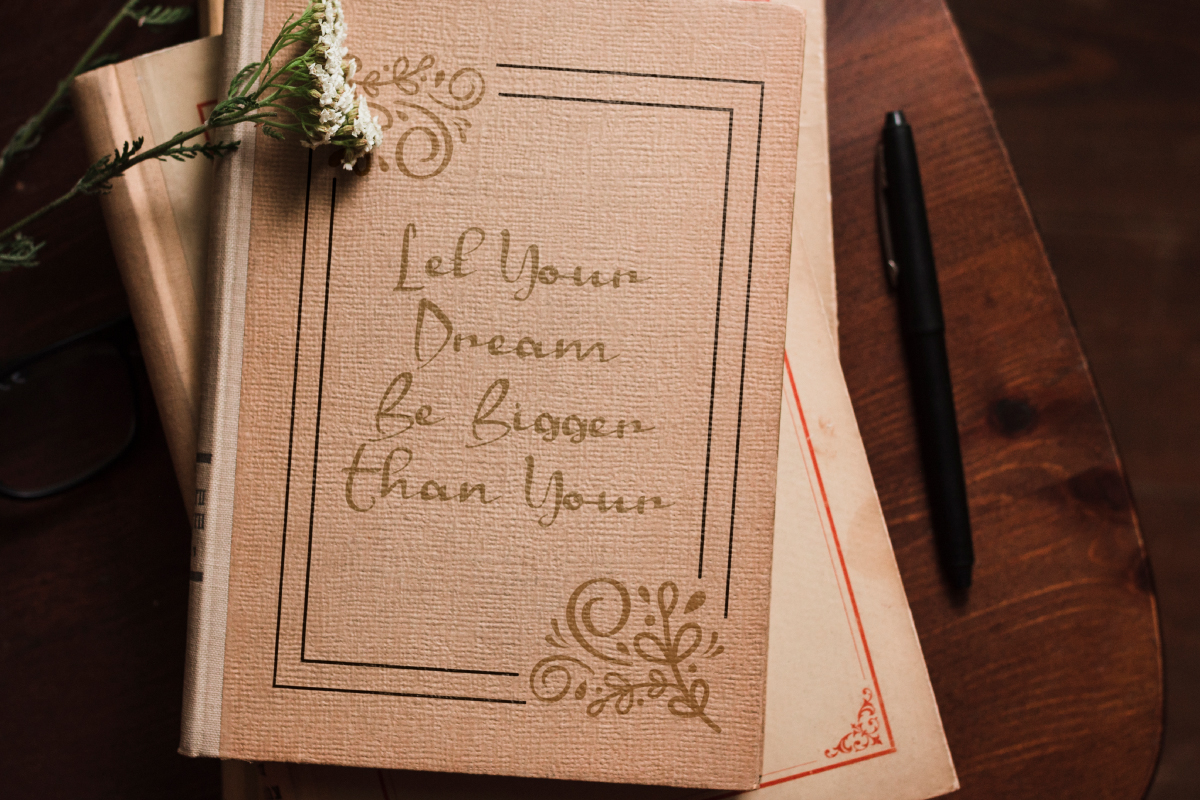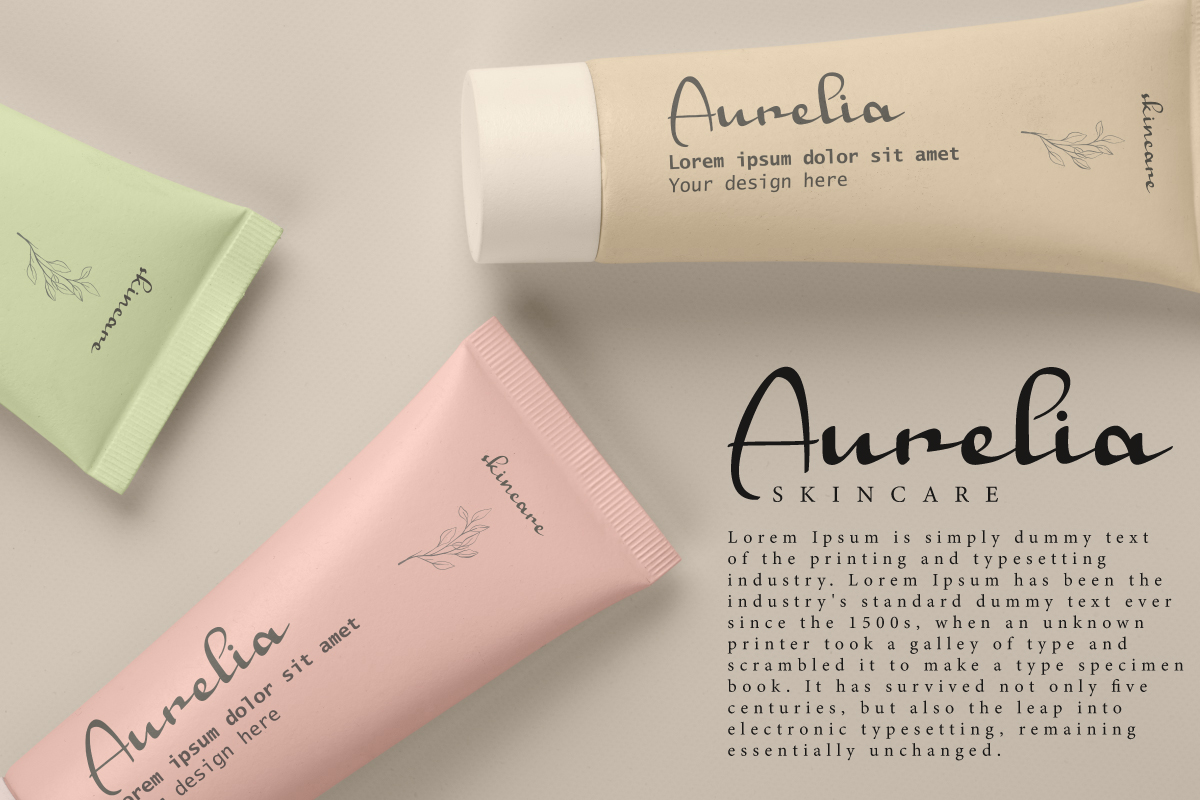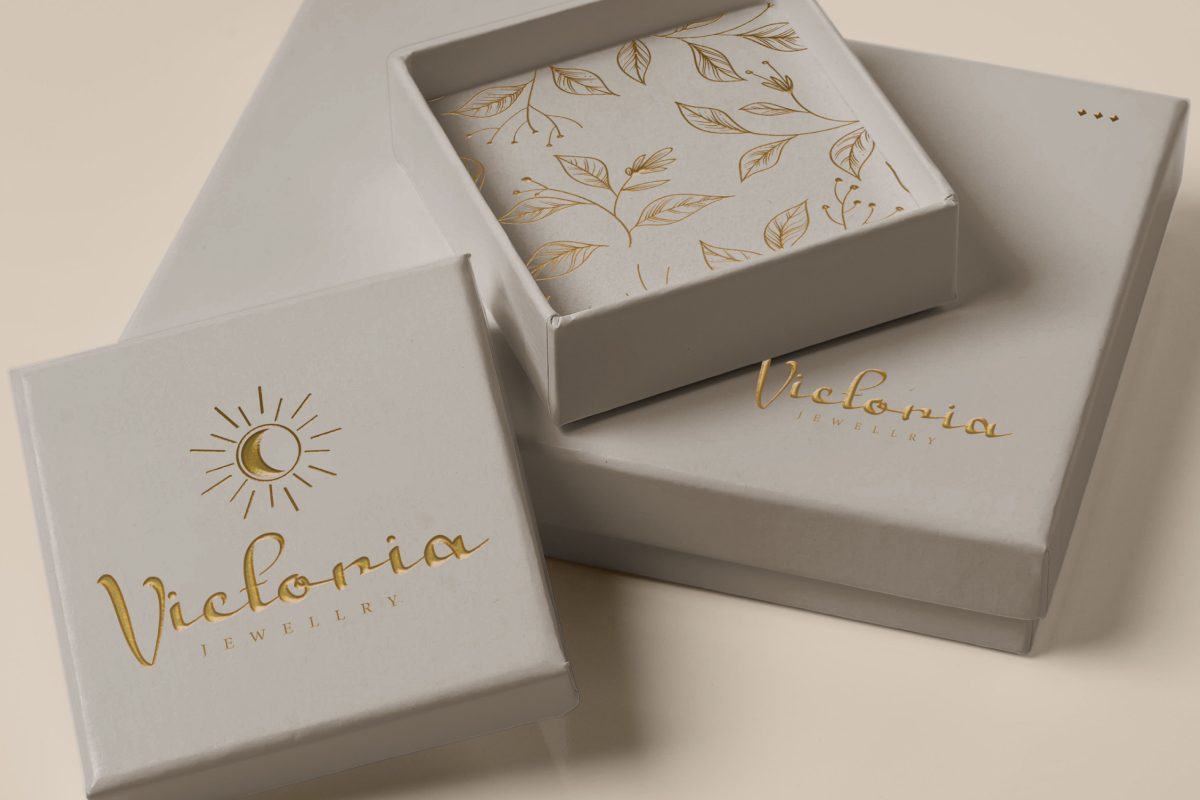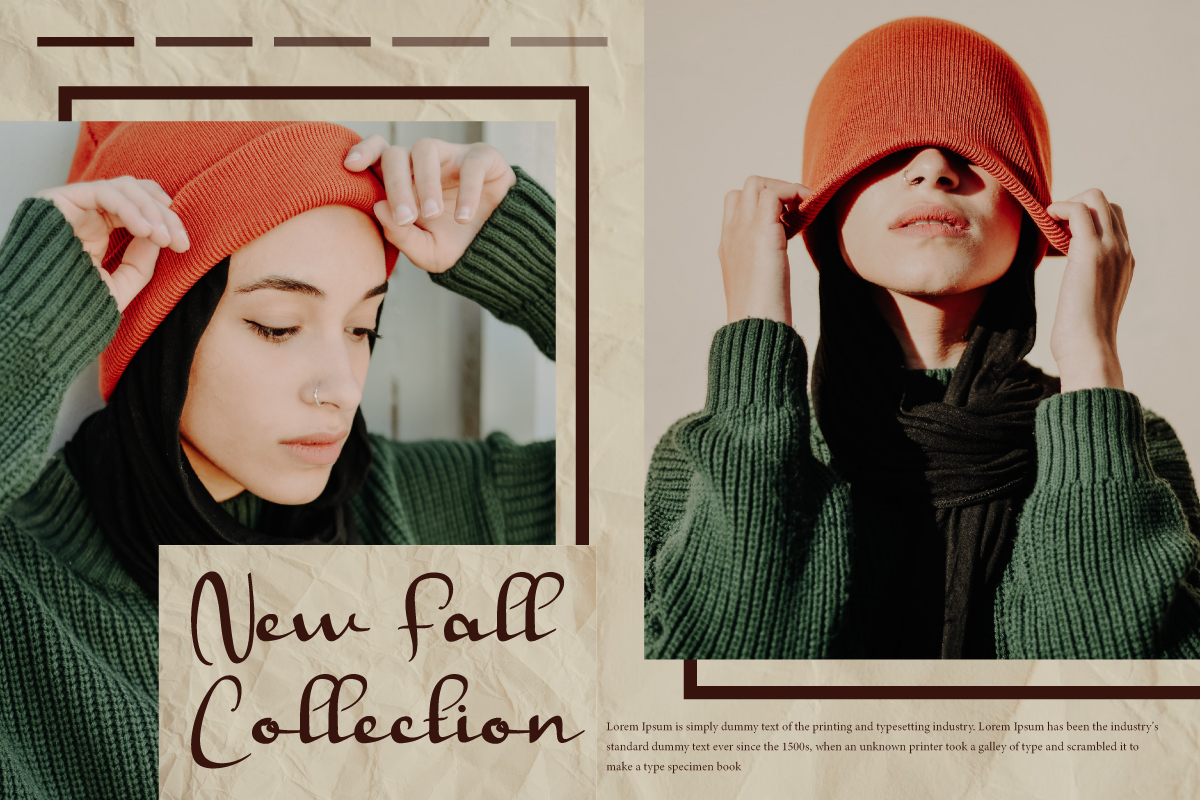
Away Stress Font
Away Stress Script Font
This is a classic handwriting script font with unique style. The shapes and lines in this font are still easy to read so they will give a beautiful impression to any of your designs. Use this font to enhance your projects, such as business card, invitation, cover, poster, product packaging, brand logo, label, web page, quote, etc.